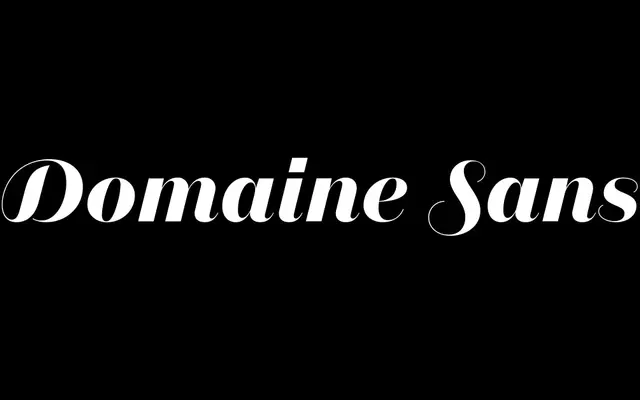
Domaine Sans Fine
Klim Type Foundry · Kris Sowersby · 2014
Domaine Sans Fine specimen from Klim Type Foundry
The sharpest optical cut of Domaine Sans, with the highest contrast for large-scale luxury and editorial display.
The Fine optical size of Domaine Sans by Kris Sowersby, drawn for the largest display sizes where the family's contrast can read at its sharpest. Sixteen styles run from Thin to Black with matching italics. Specimens for Domaine Sans were added to the Cooper Hewitt Collection in 2016, and the Fine cut tends to appear in luxury, fashion and high-end editorial work where the brief calls for the punch of a Didone but in a sans frame.
Klim classifies it as Lineal: Grotesque, High Contrast; the finest optical cut of Domaine Sans, with the sharpest contrast, sharing the family's exploration of contrasted sans serifs.